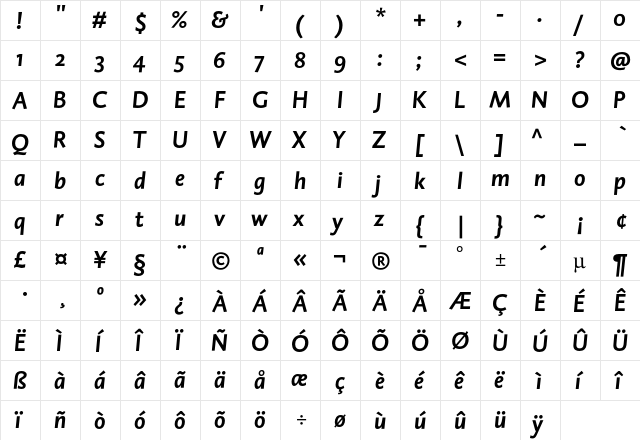
DTLCaspariST BoldItalic
Design Context for DTLCaspariST Typeface
DTLCaspariST is a composed and adaptable typeface that performs quietly and consistently across a wide range of design contexts. Its italic angle brings a sense of urgency and motion to the letterforms. The heavy weight commands attention and anchors typographic hierarchies.
Pro Tip: Try DTLCaspariST for annotation and caption copy alongside an upright companion — the contrast in angle creates a dynamic but ordered typographic system.